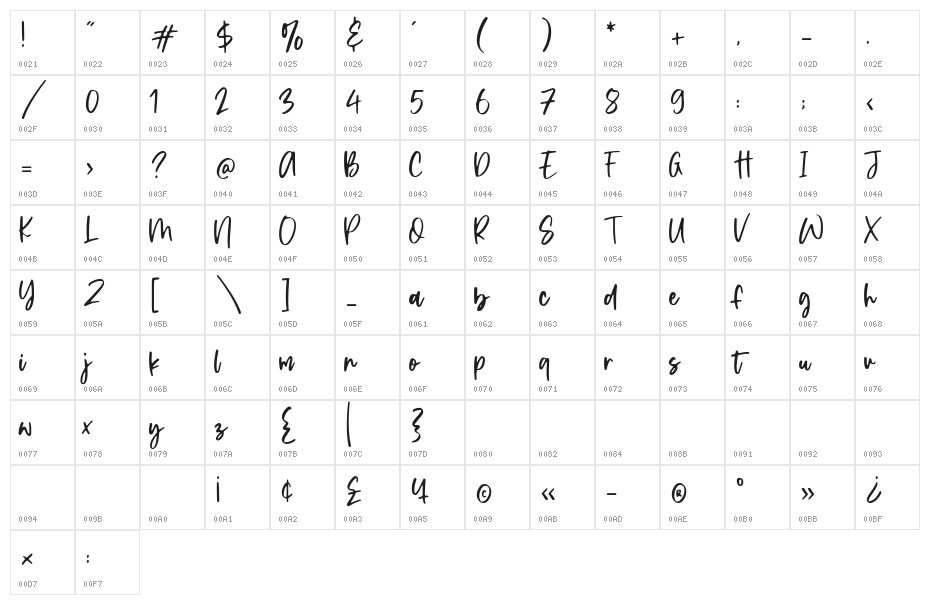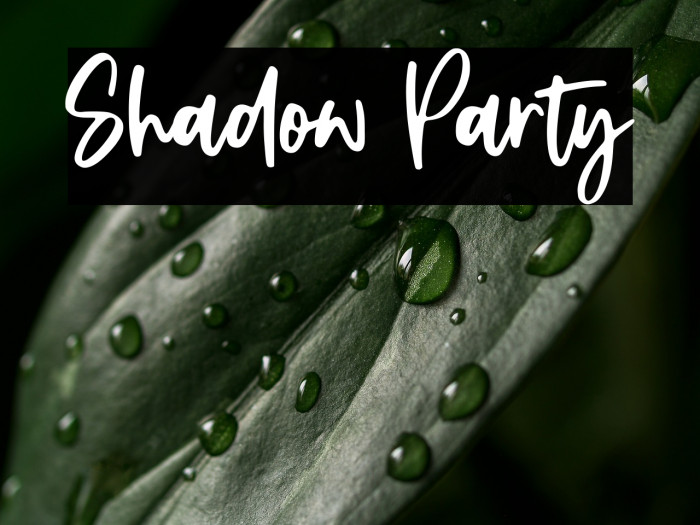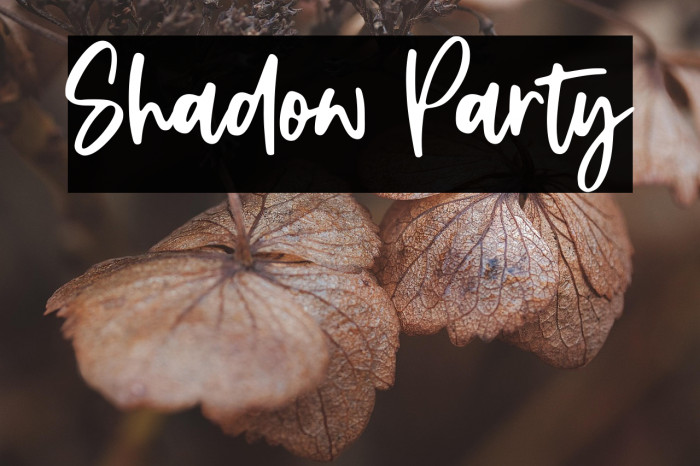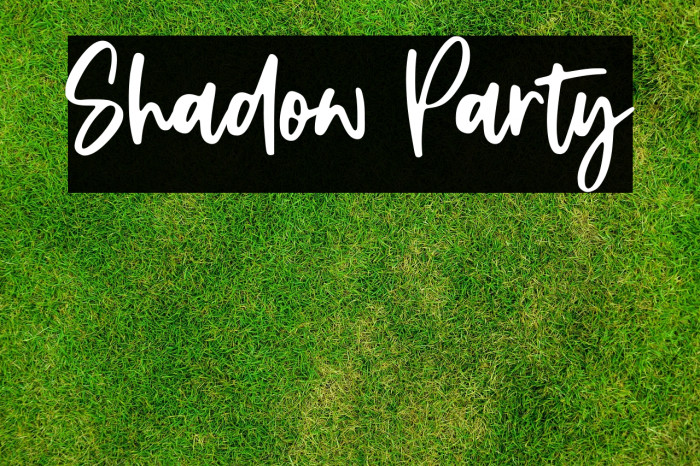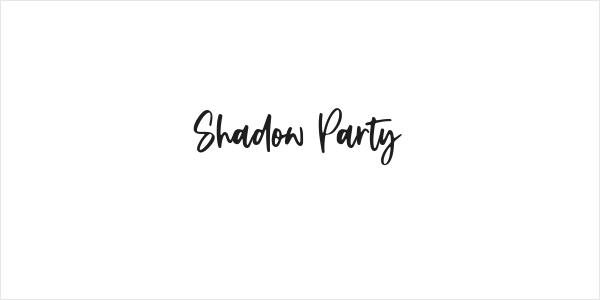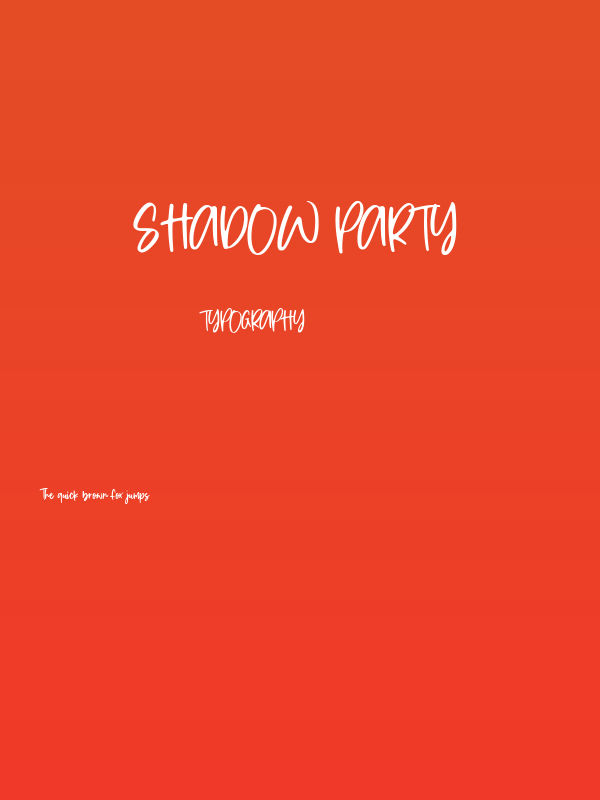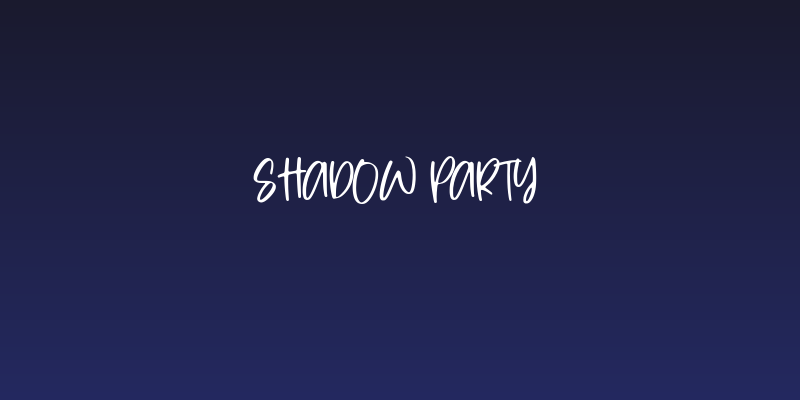
Shadow Party Font
Shadow Party Description
This font features a lively and dynamic handwritten style, characterized by its fluid and casual strokes. The letters exhibit a playful and informal appearance, with varying thickness that adds a sense of movement and energy. The uppercase and lowercase letters maintain a consistent style, while the numerals and special characters complement the overall aesthetic. The font's design is well-suited for projects that require a personal touch or a creative flair, making it ideal for invitations, greeting cards, and artistic branding. Its unique style captures attention while remaining legible and versatile.
| Proposed Projects | Ideal for invitations, greeting cards, artistic branding, and creative projects. |